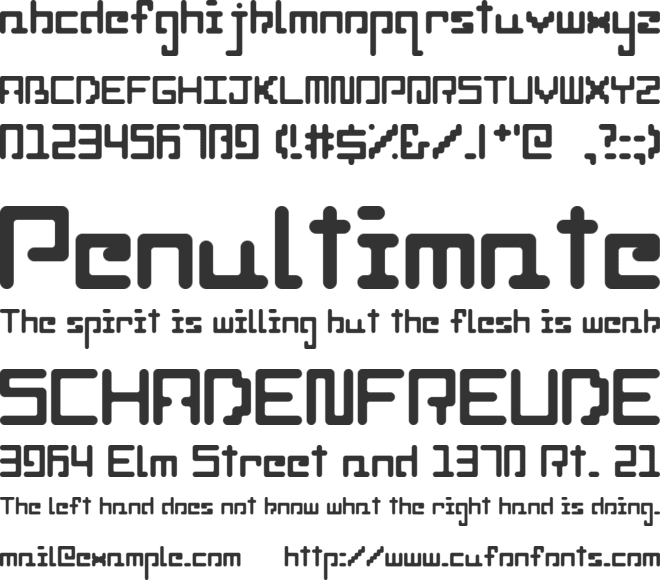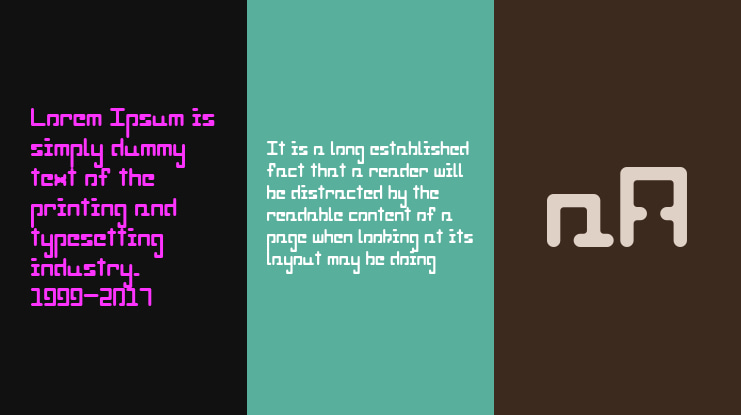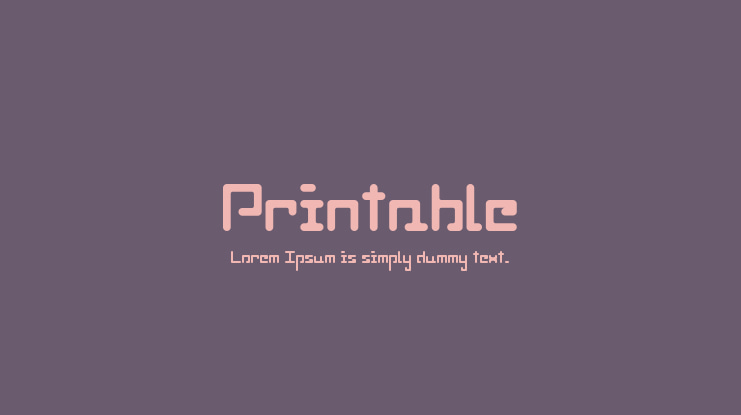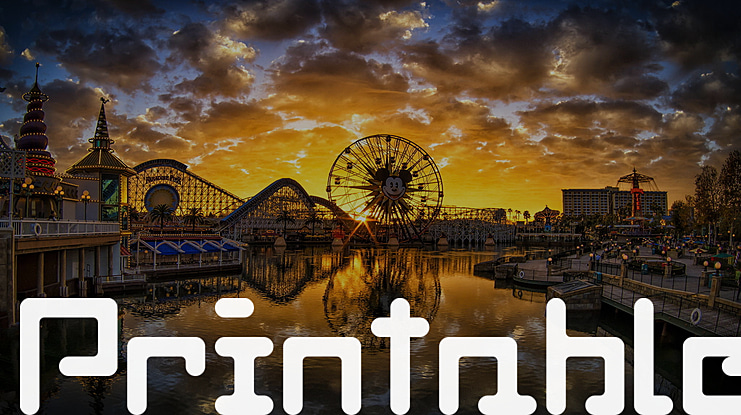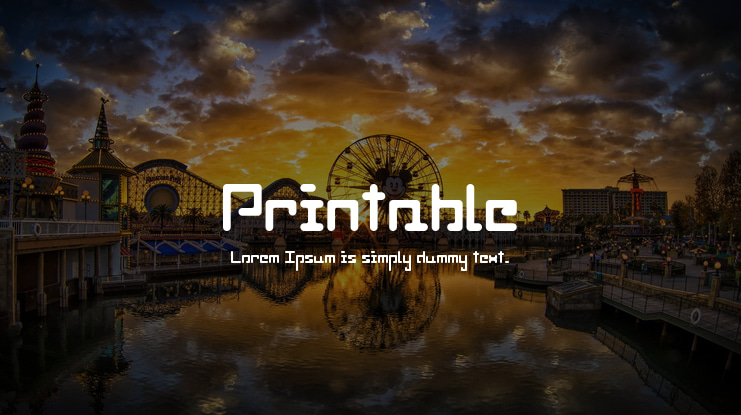
Printable Font
XenoCow
Printable, is, as you might expect, a font designed to be easily printable. In this case, I designed this font to easily work with 3D printers.
There are no floating components that would fall out, if you were to make cutouts of letters. Also, all lines are of uniform width to allow single line printing.